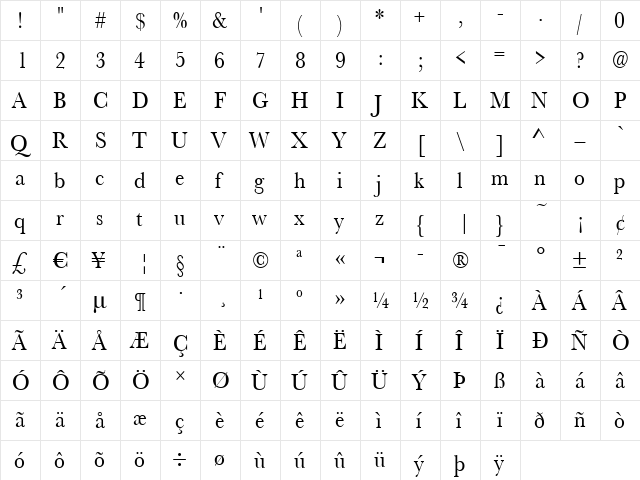
RoxanneBeckerNarrow Regular Font Preview
RoxanneBeckerNarrow Regular
Design Context for RoxanneBeckerNarrow Typeface
RoxanneBeckerNarrow offers clean, dependable letterforms without strong stylistic allegiance, making it a practical choice for designers who need flexibility. Its narrow stance lets it pack a punch even in space-constrained designs.
Pro Tip: Use RoxanneBeckerNarrow in both headline and body roles to test its range before committing to a single application.